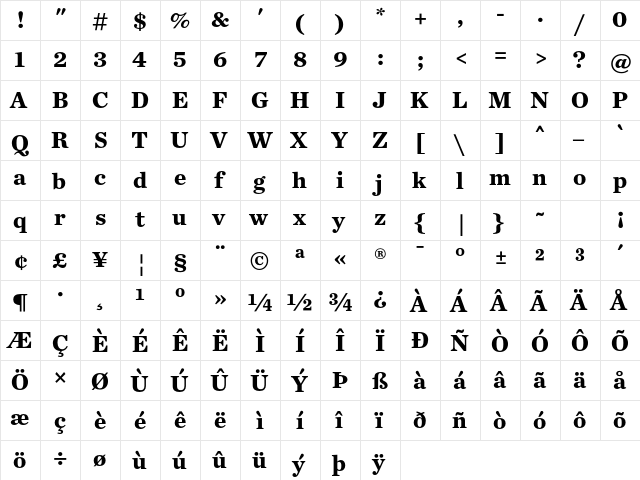
Chronicle Text G3 Bold
| Foundry | Hoefler & Frere-Jones |
| Designer | Hoefler & Frere-Jones |
Design Context for Chronicle Text G3 Typeface
Chronicle Text G3 offers clean, dependable letterforms without strong stylistic allegiance, making it a practical choice for designers who need flexibility. Its bold stroke weight gives it real presence on the page.